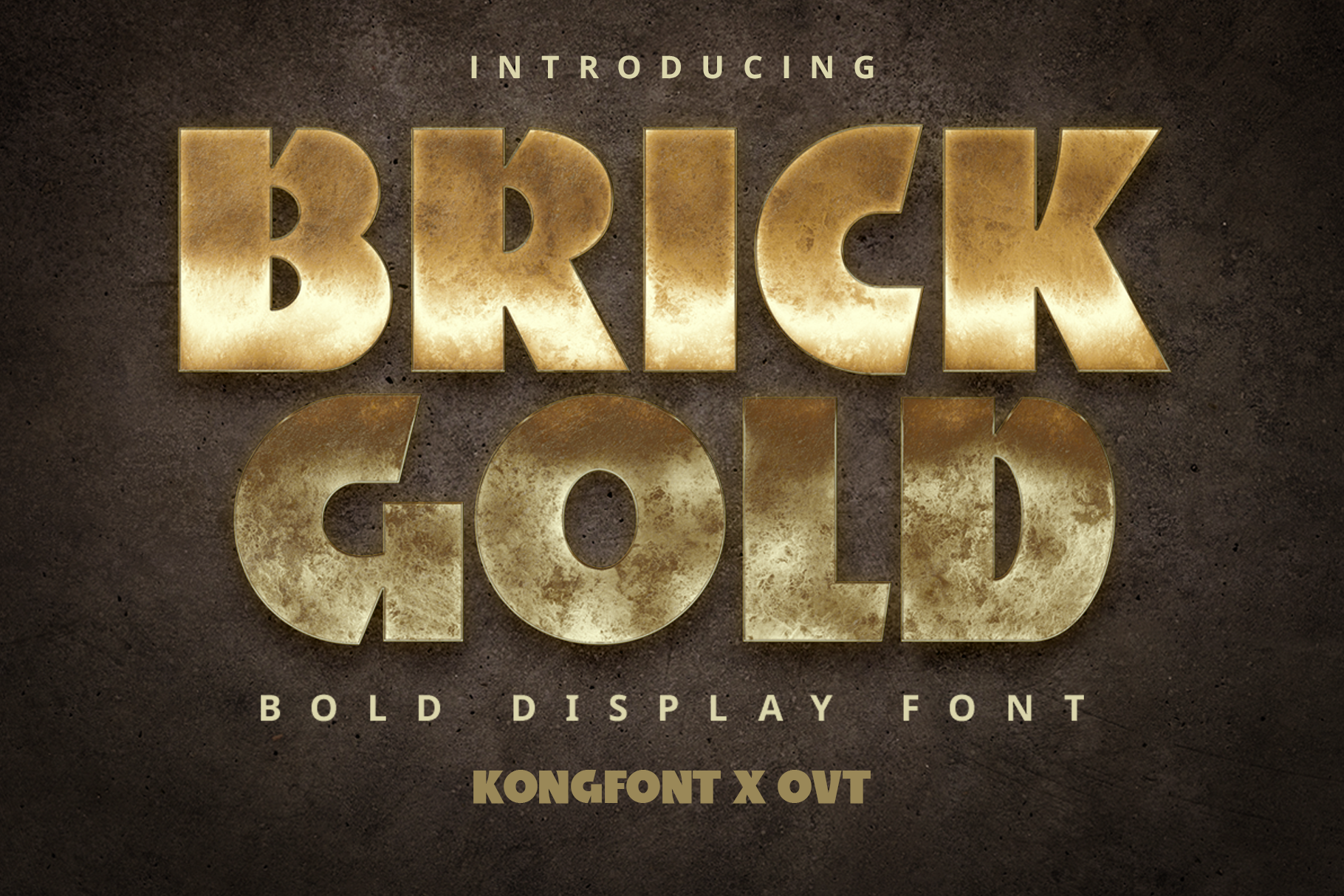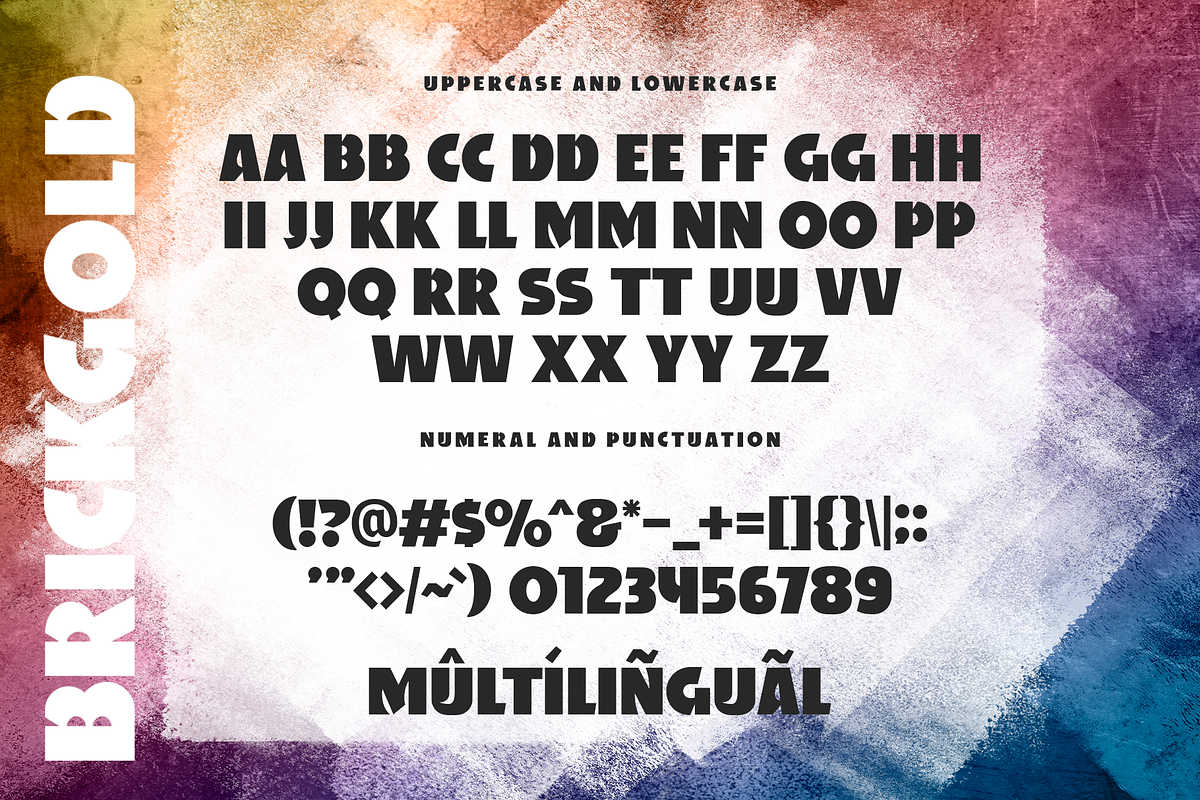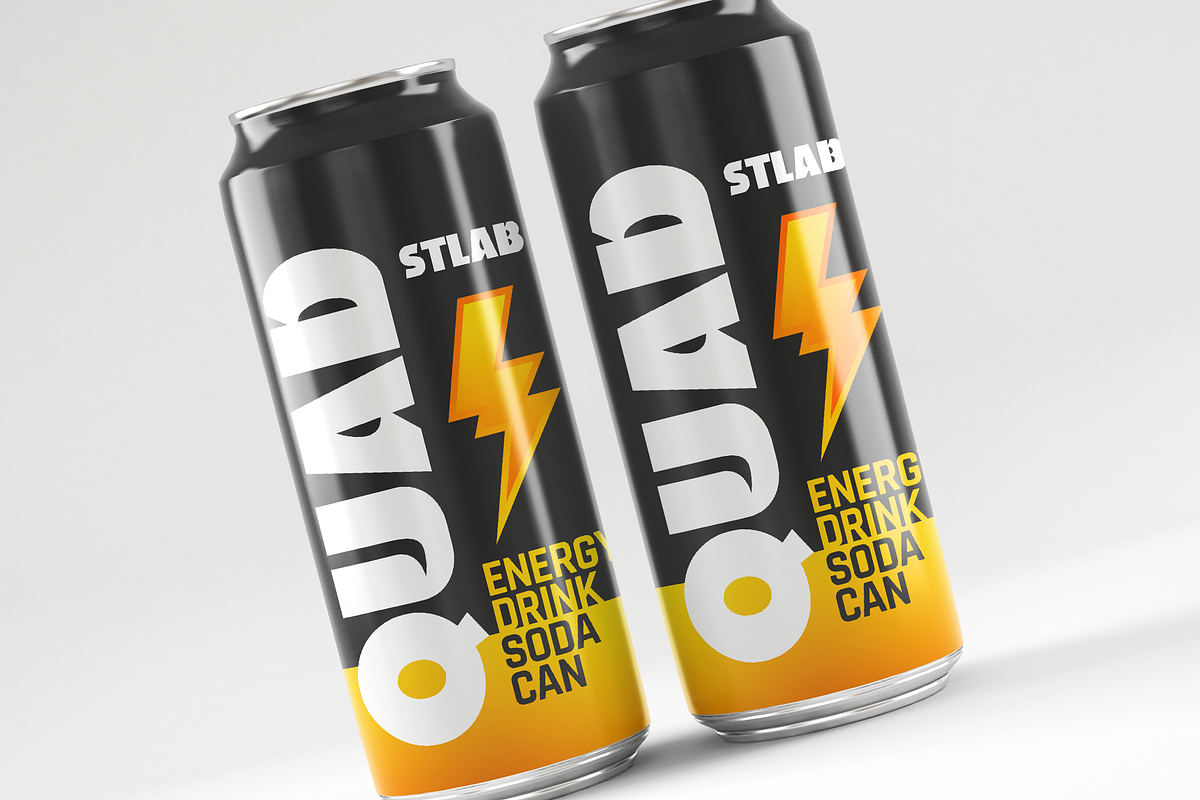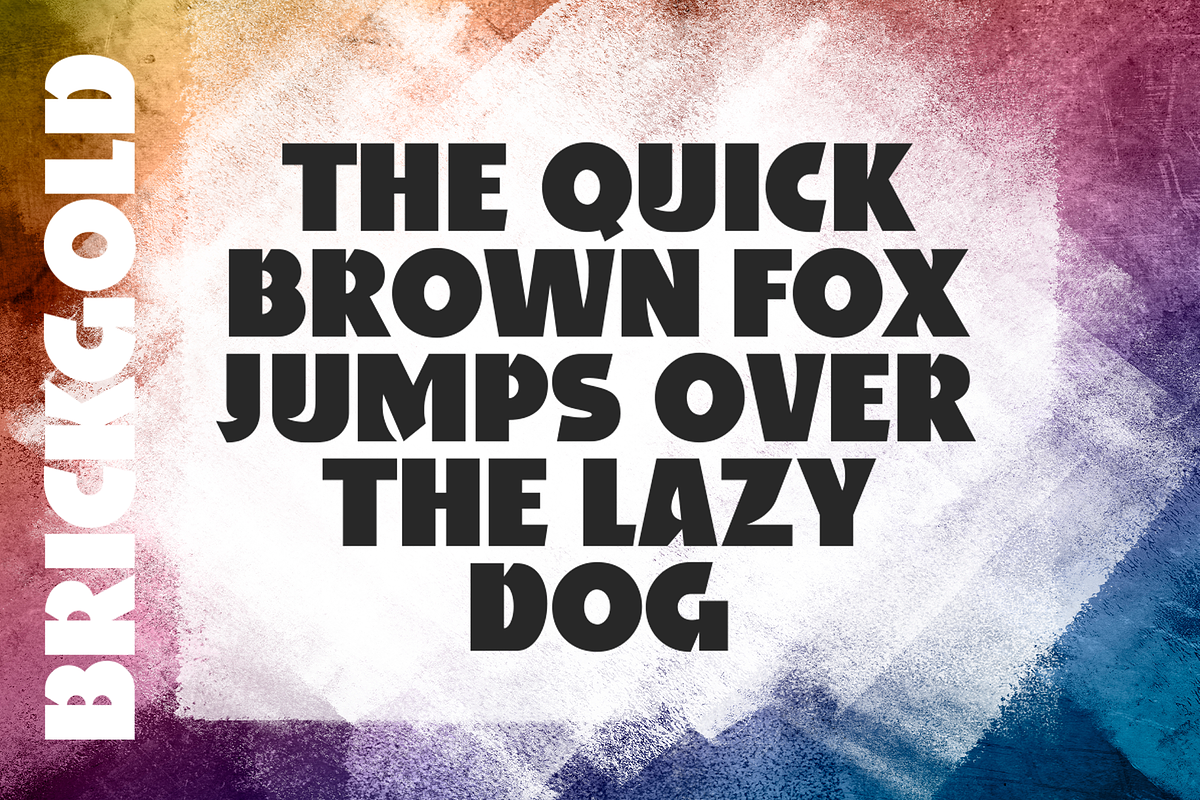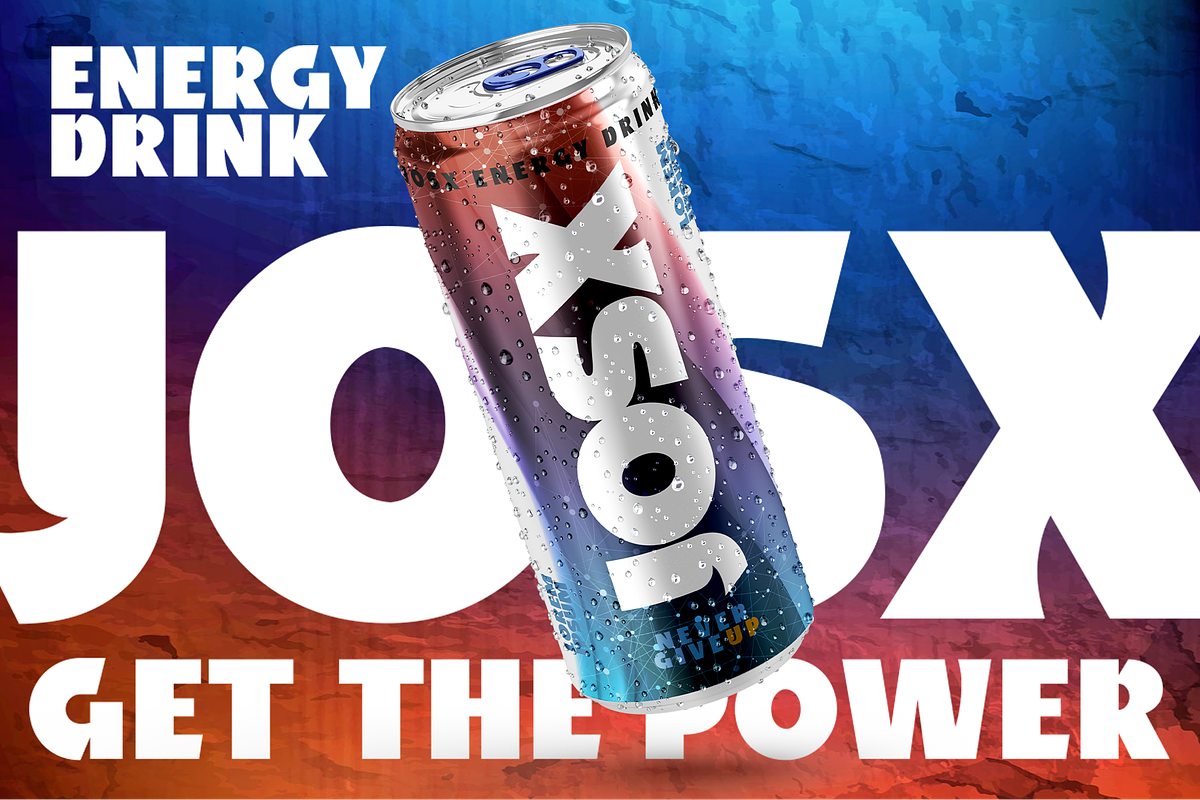
Brickgold - Bold Display Font
Introducing "Brickgold," a bold display font designed to command attention and make a powerful impact. With its strong lines and robust character, Brickgold is perfect for projects that require a standout presence and striking visual appeal.
Ideal for posters, logos, headlines, branding materials, and more, Brickgold's bold and assertive style ensures that your message is seen and remembered. Each letter is crafted with precision to deliver a clean, impactful look that exudes confidence and strength.
The "Brickgold" font includes a full set of uppercase and lowercase letters, numbers, and punctuation marks, providing versatility and flexibility for all your design needs. Whether you're creating eye-catching advertisements or bold brand identities, Brickgold enhances your projects with its powerful and dynamic typography.
Elevate your designs with the bold brilliance of Brickgold, a display font that ensures your message stands out with style and strength.